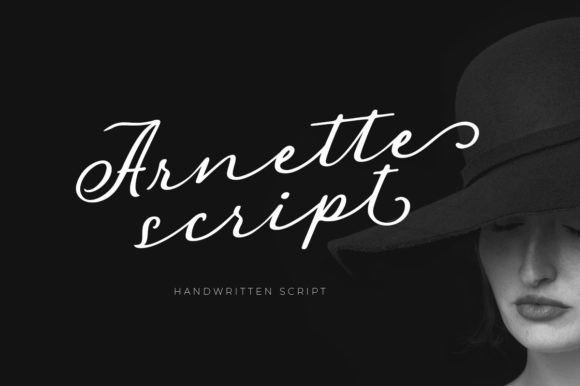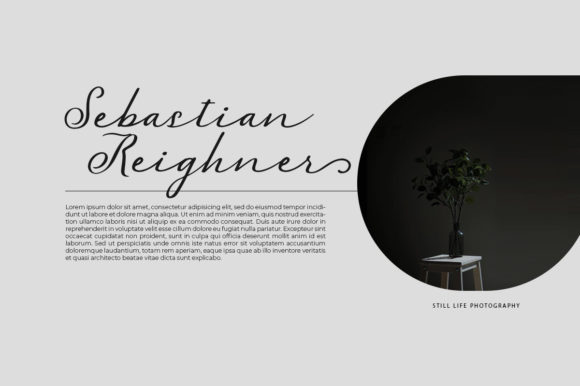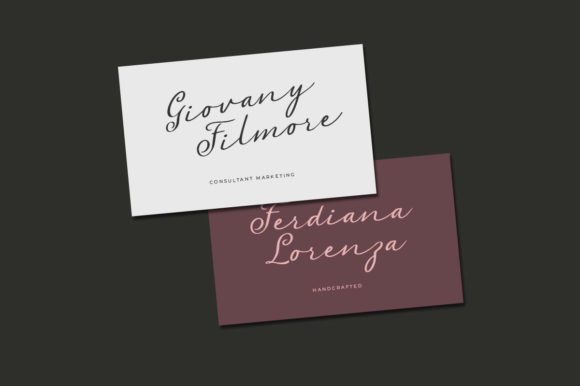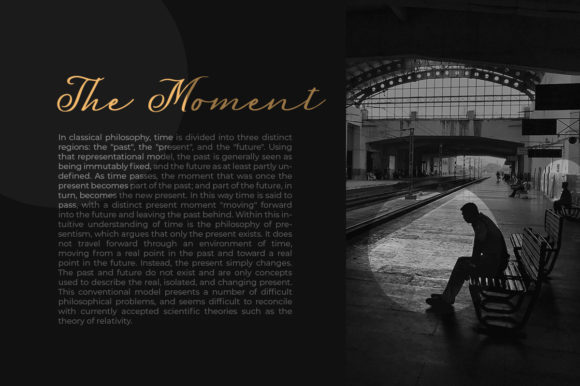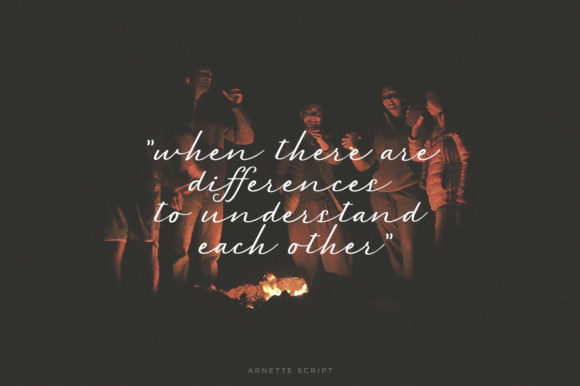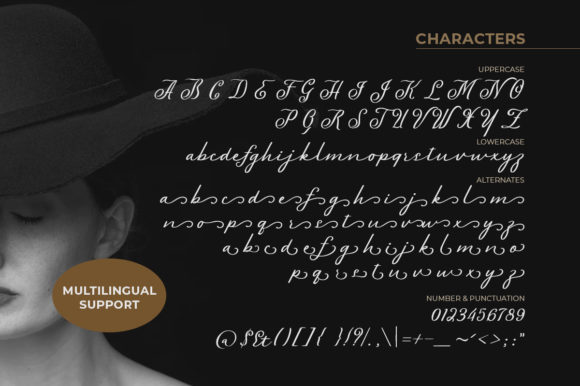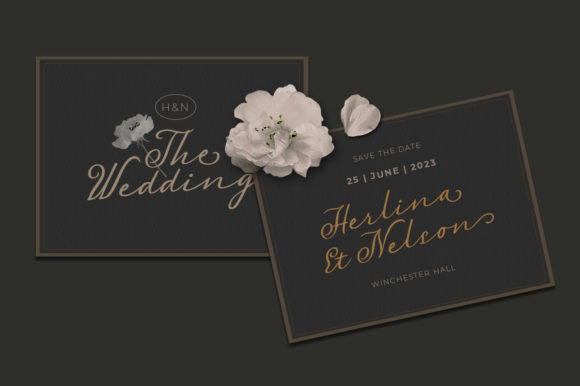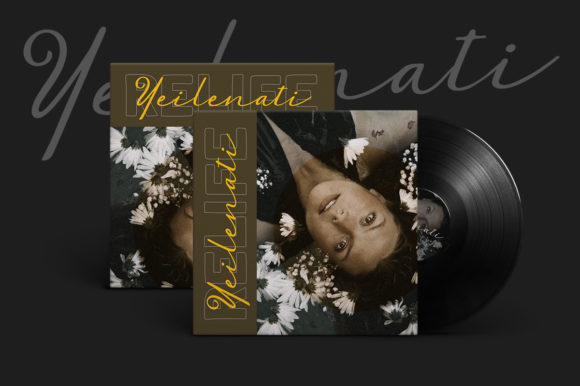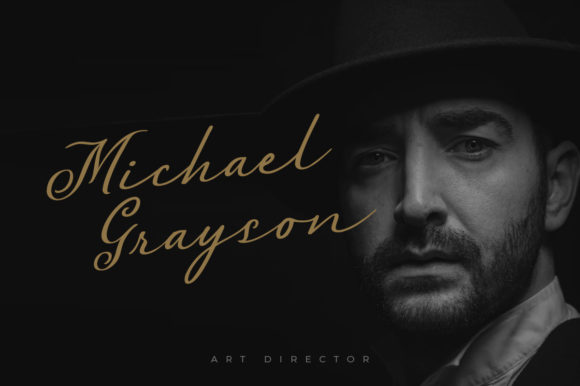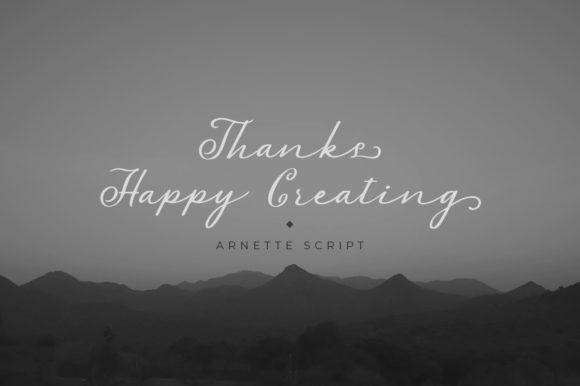
Arnette Script Font
About Arnette Script Font
Arnette Script is an elegant, beautiful, and whimsical script font that offers versatility and charm. With its captivating style, this font can be used for a wide range of purposes, including logos, wedding invitations, headings, t-shirts, letterhead, signage, labels, news, posters, badges, and more.
The elegance of Arnette Script adds a touch of sophistication to your designs. Its flowing letterforms and graceful curves create a visually pleasing aesthetic. Whether you’re designing a logo for a high-end brand, creating wedding stationery, or designing a headline for a publication, Arnette Script font brings an element of beauty and elegance to your creations.
The whimsical nature of Arnette Script adds a playful and enchanting vibe to your designs. Its unique and decorative letterforms bring a sense of joy and creativity. This font can effortlessly convey a sense of whimsy and lightheartedness, making it suitable for various design applications.
Arnette Script’s versatility allows it to be applied to a wide range of design projects. Its adaptability makes it well-suited for diverse purposes, from branding materials to merchandise and from print to digital media. Whether you’re creating labels for packaging or designing a poster for an event, Arnette Script font provides a captivating and eye-catching option.
In summary, Arnette Script is an elegant, beautiful, and whimsical script font that offers versatility for various design purposes. Its charm and style make it suitable for logos, wedding invitations, headings, t-shirts, letterhead, signage, labels, news, posters, badges, and more. Embrace the elegance and whimsy of Arnette Script and let it enhance your designs with its captivating and enchanting presence.